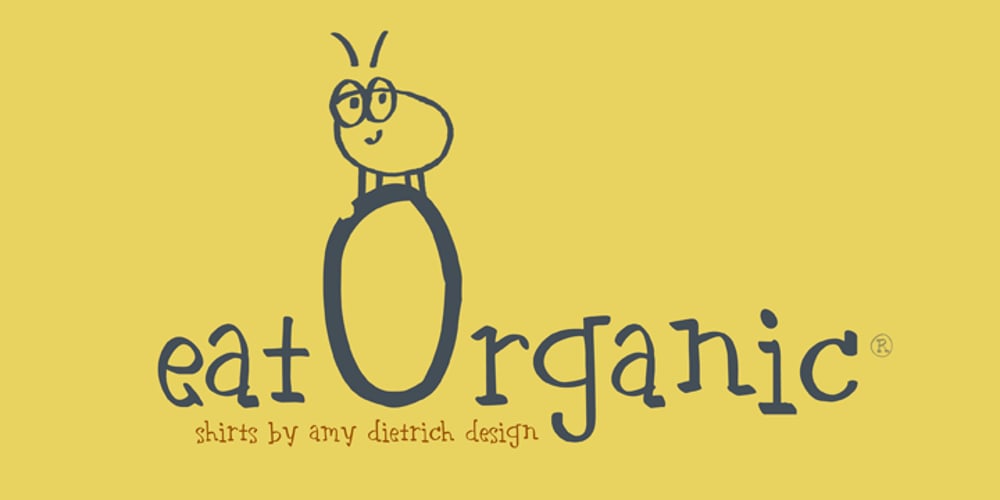
Gruyere Font Family was designed by Amy Dietrich and published by Atlantic Fonts. Gruyere contains 1 styles and family package options. Gruyère is rich with character and always in good taste. Earthy and assertive, Gruyère adds distinctive flavor to every occasion.